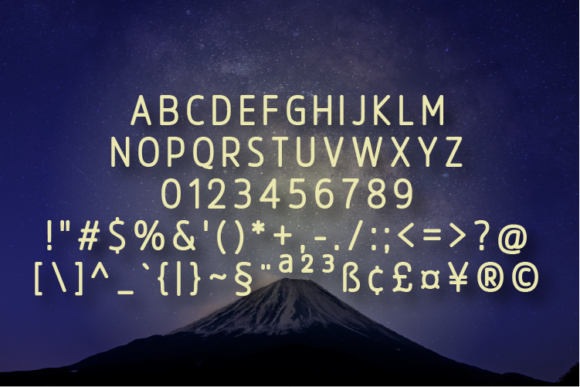
Introduction to Qolam Extra Bold Font
As a designer, have you ever been in the midst of a creative project, staring at a blank canvas, and suddenly, the perfect font pops into your mind? For me, it was the Qolam Extra Bold Font. I was working on a magazine cover and desperately needed a font that would add a touch of sophistication and elegance. That’s when I stumbled upon Qolam Extra Bold Font, a gorgeous Swedish-style sans serif font that is extremely versatile and timeless.
I was immediately drawn to its high quality and sleek design, perfect for a design resource like mine. With its transparent background, Qolam Extra Bold Font is a great choice for any creative project. And the best part? It’s available for free download, making it an invaluable resource for designers like me.
Key Features of Qolam Extra Bold Font
- Features a transparent background, allowing for seamless integration into various designs
- Unique, bold design that adds a touch of sophistication to any creative project
- Perfect for use in logos, headings, and titles, where a bold and eye-catching font is required
Honest Review: Qolam Extra Bold Font
As a designer, I’m always on the lookout for high-quality design resources to elevate my creative projects. Recently, I had the chance to try out the Qolam Extra Bold Font, and I must say it’s been a game-changer.
- ✨ High-quality glyphs that ensure crisp and clear text display
- ✨ Elegant and modern design that’s perfect for contemporary projects
One of the standout features of the Qolam Extra Bold Font is its versatility. It’s perfect for use on transparent backgrounds, allowing the text to really stand out and grab attention. I’ve used it in a number of my recent projects, and the results have been consistently impressive.
- ⚠️ Limited character set, which may not be suitable for projects that require a wide range of special characters
- ⚠️ Not as extensive a family as some other fonts, which may limit its use in certain applications
Overall, I’m thoroughly impressed with the Qolam Extra Bold Font. While it may have some limitations, its high quality and versatility make it a valuable addition to any designer’s toolkit.
How to Use Qolam Extra Bold Font
The Qolam Extra Bold Font is a high-quality design resource ideal for creative projects. This font features a bold, modern design that can add a professional touch to any project. It’s available for free download, making it an excellent choice for designers on a budget.
To get the most out of the Qolam Extra Bold Font, use it on a transparent background to create a clean and modern look. You can also pair it with other fonts to create a unique and creative design.
The Qolam Extra Bold Font is ideal for use in creative projects such as:
1. Business cards and brochures.
2. Social media graphics and posters.
3. Website headers and footers.